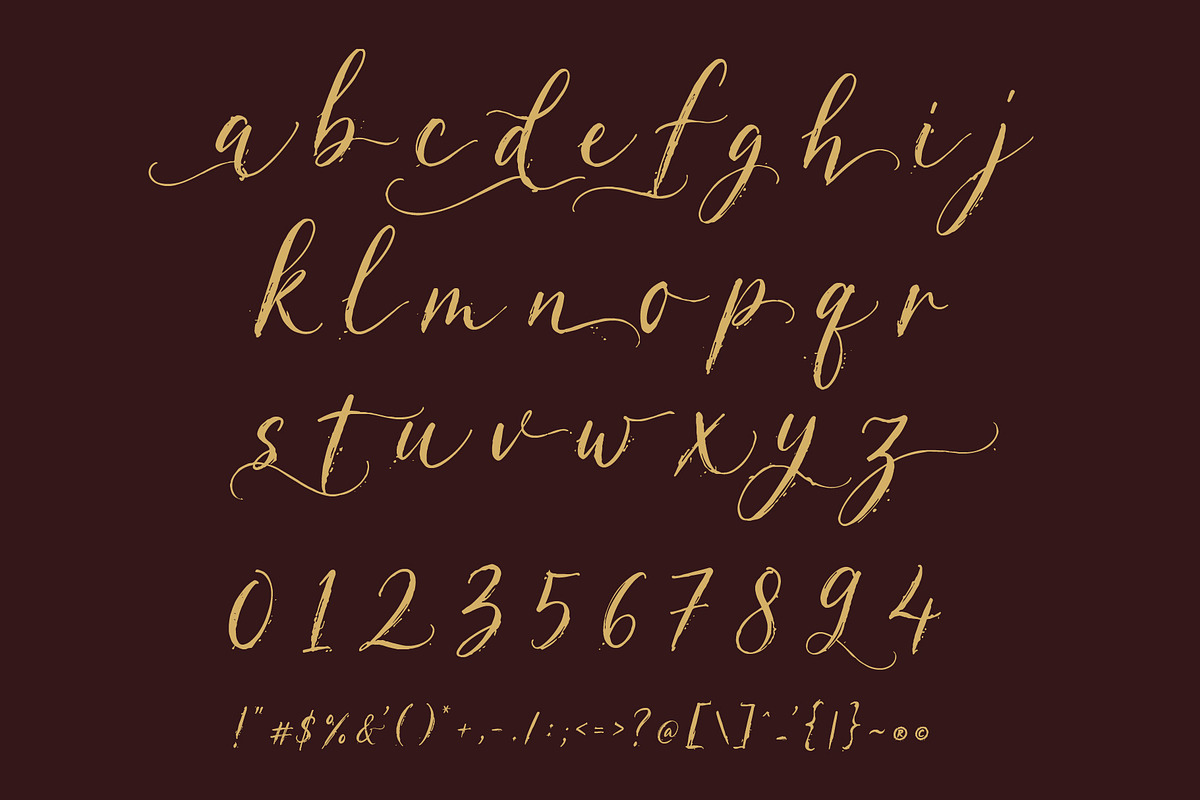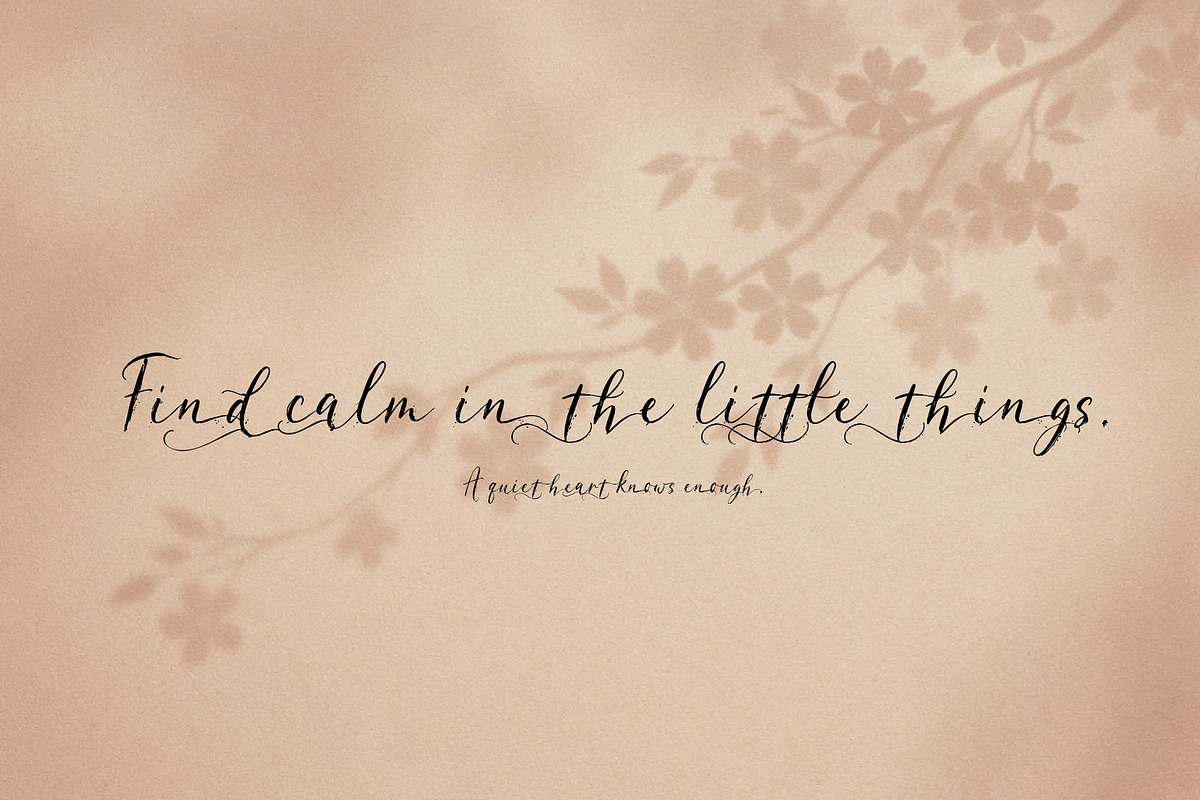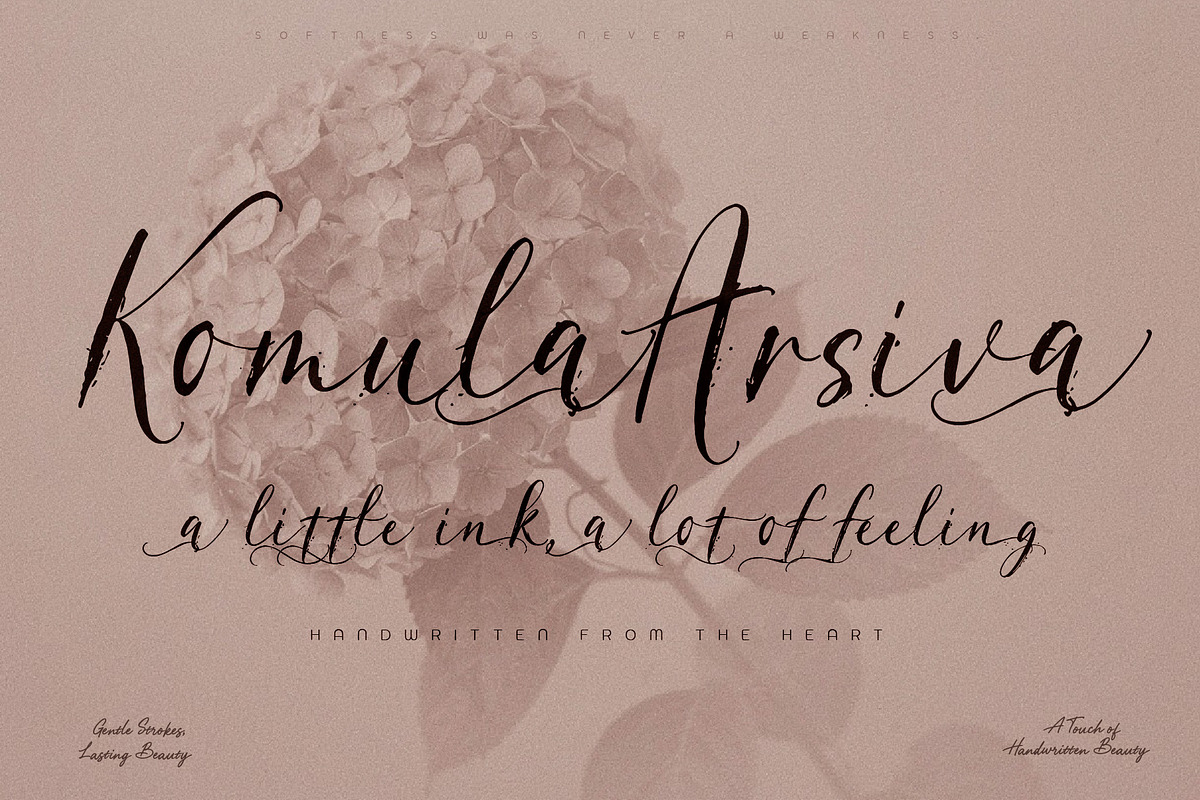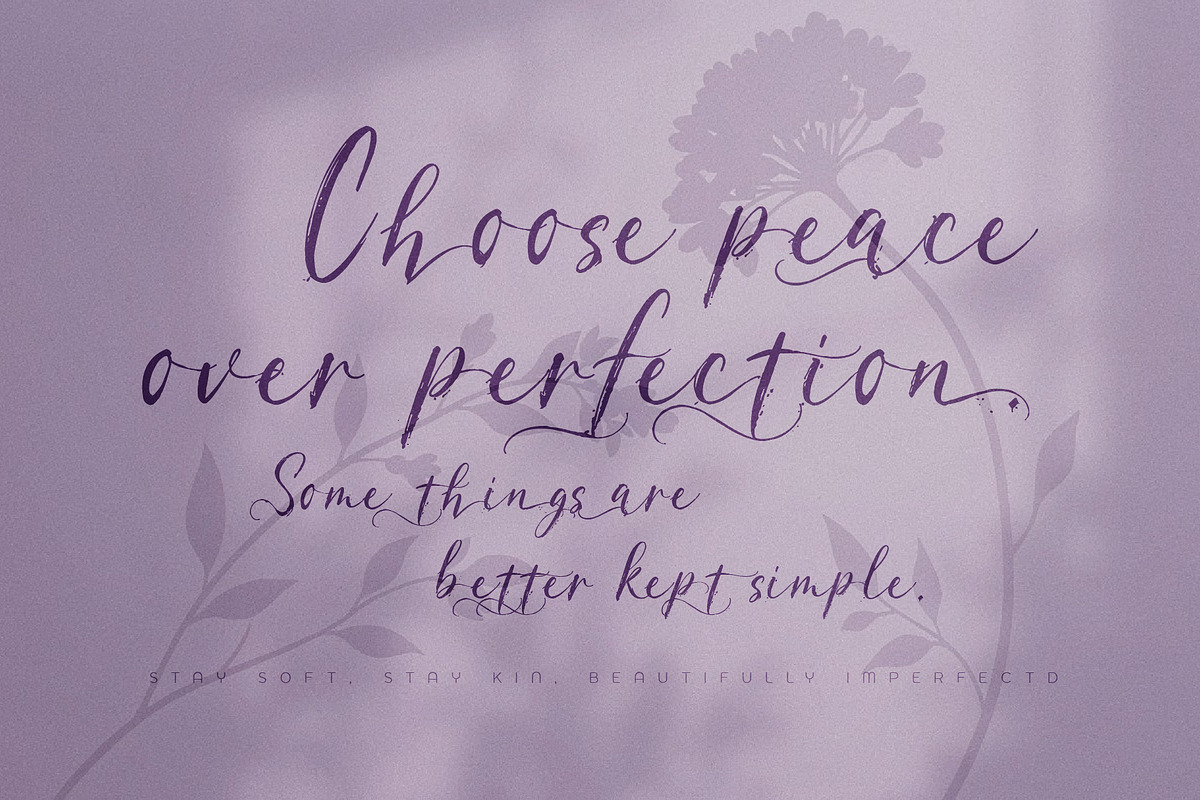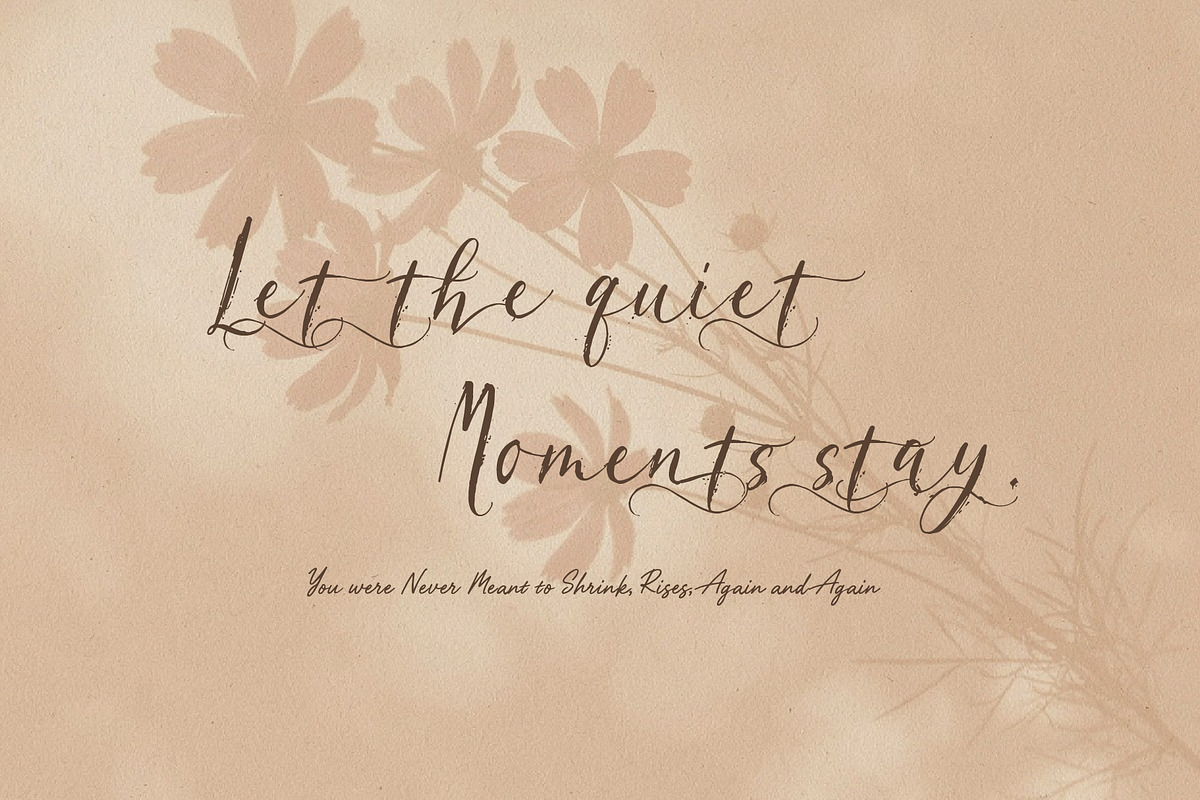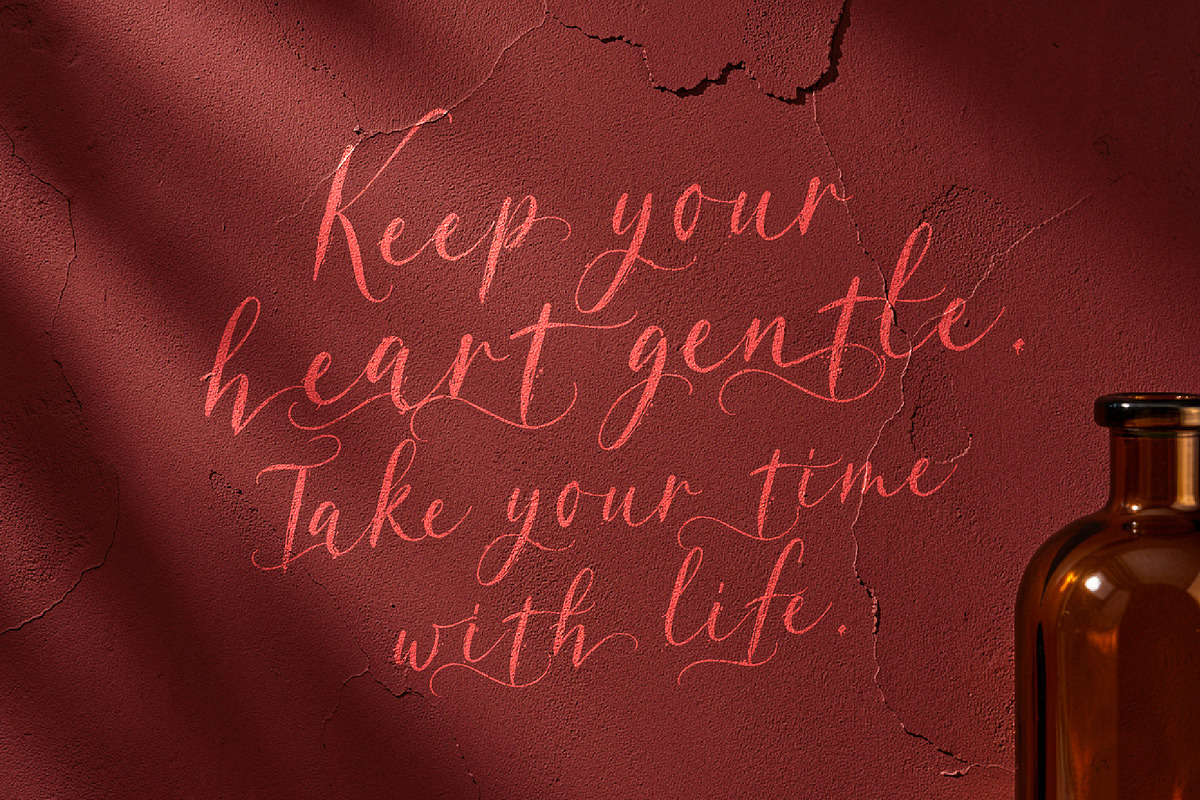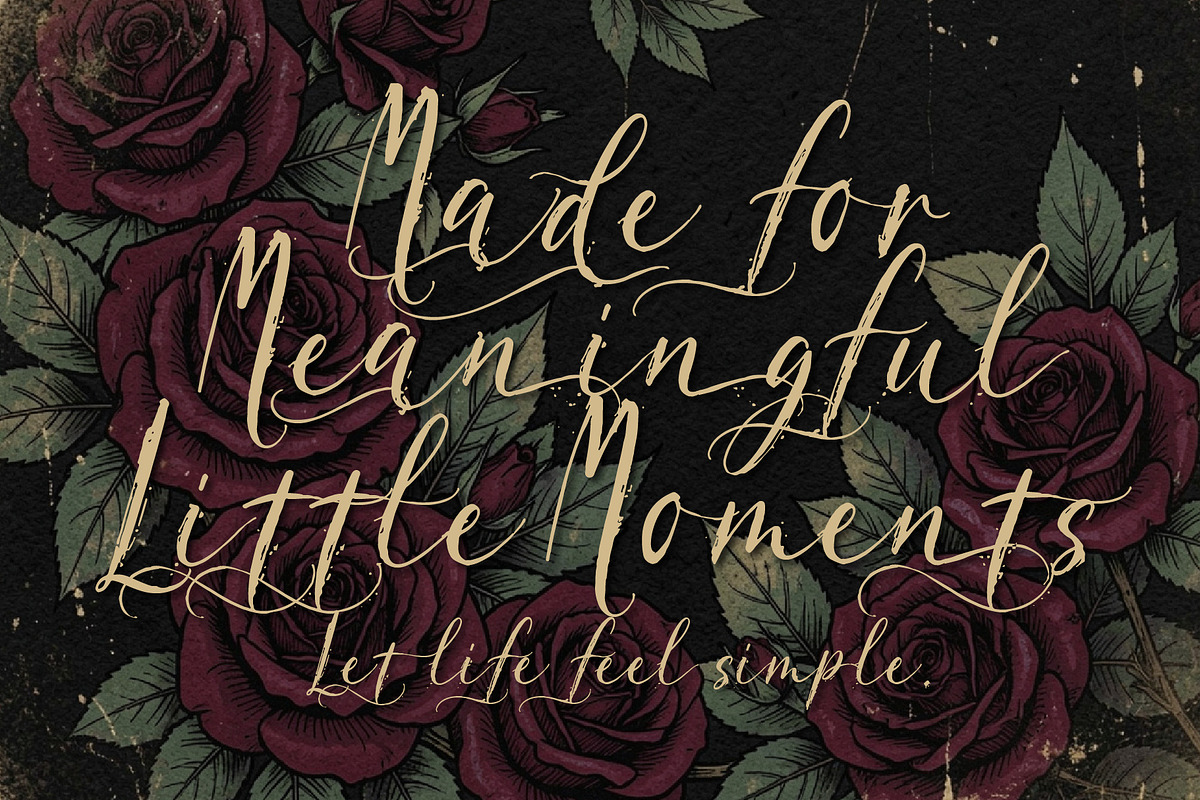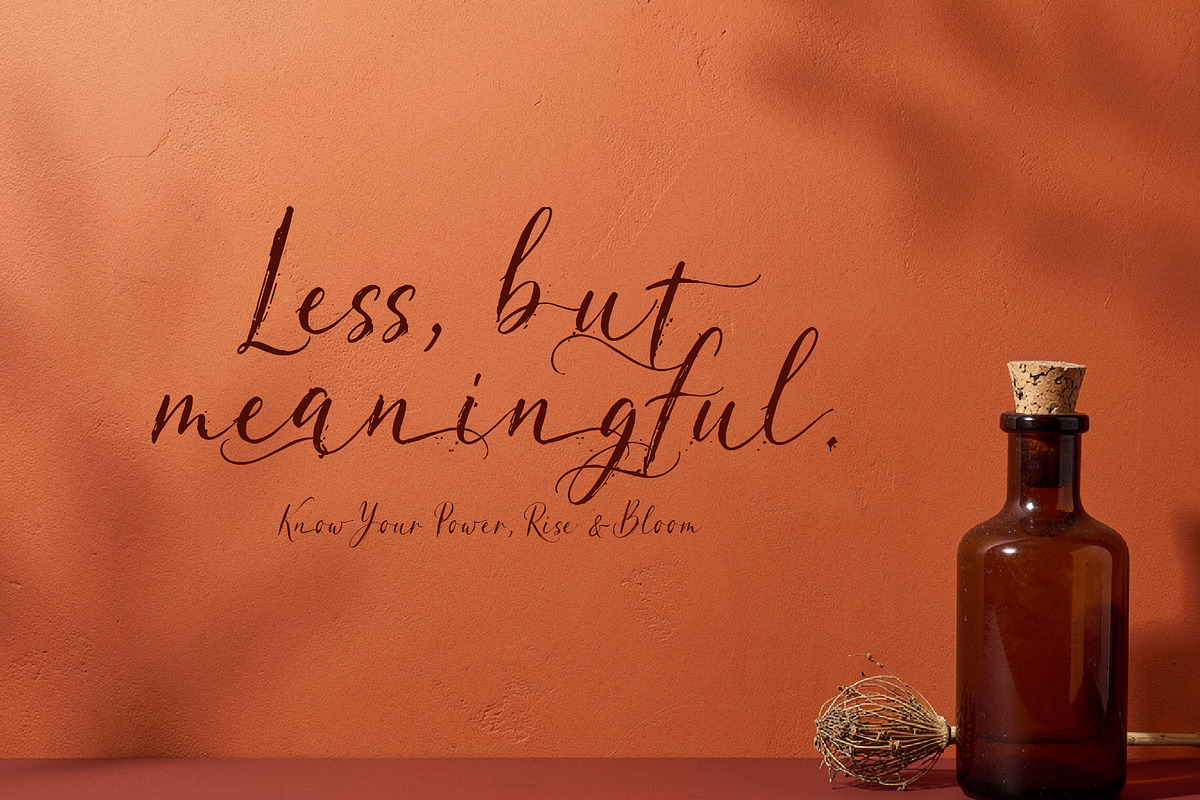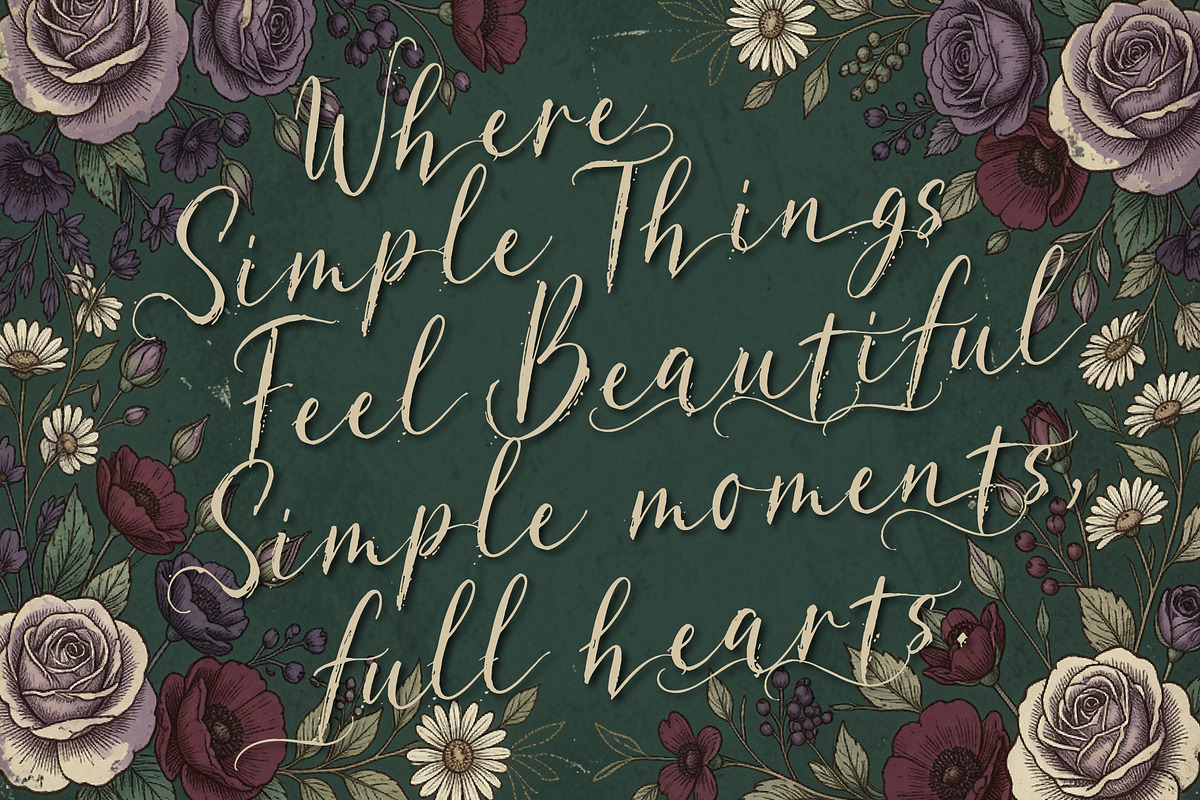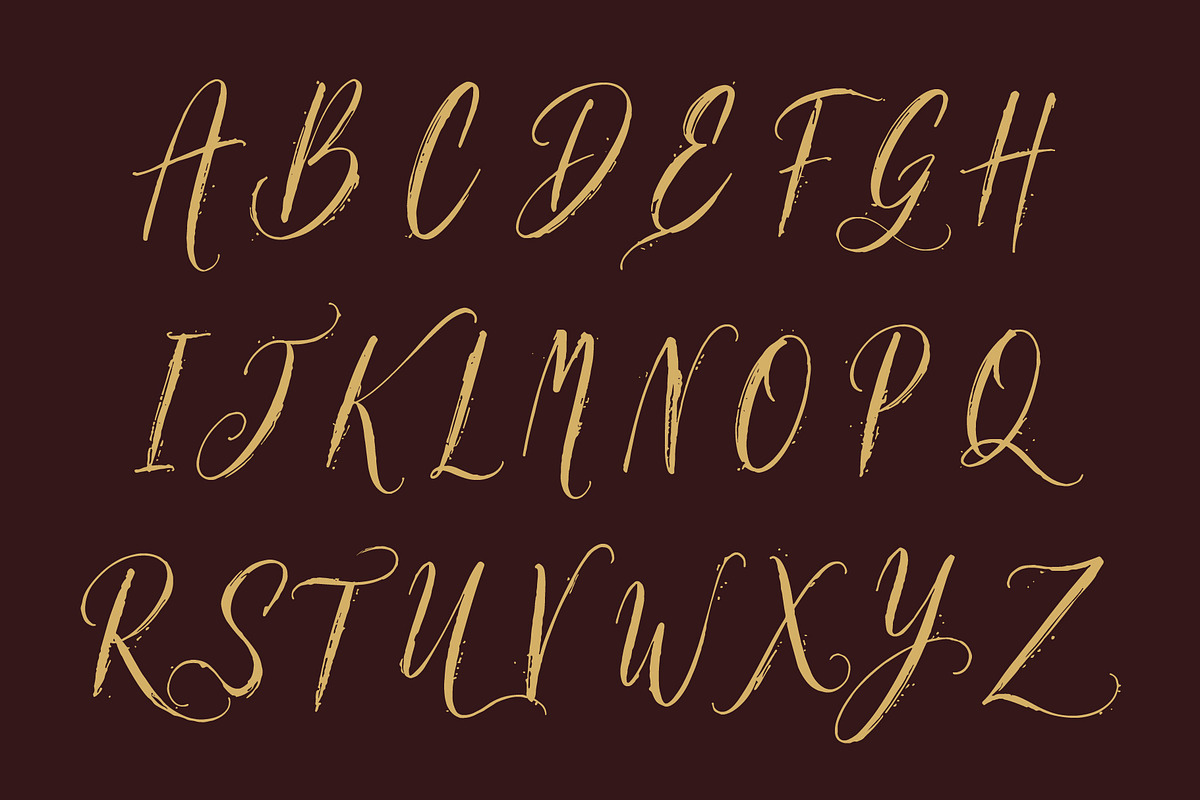
Komula Arsiva - Beautiful ink Script
Komula Arsiva is a beautiful feminine script inspired by the natural movement of ink and a little brush. Its flowing strokes, delicate imperfections, and handwritten character create a warm, personal, and effortlessly artistic feel.
Perfect for logos, branding, wedding invitations, quotes, stationery, packaging, fashion, beauty, lifestyle, and social media designs. Komula Arsiva brings a graceful handwritten touch to both elegant and casual projects.